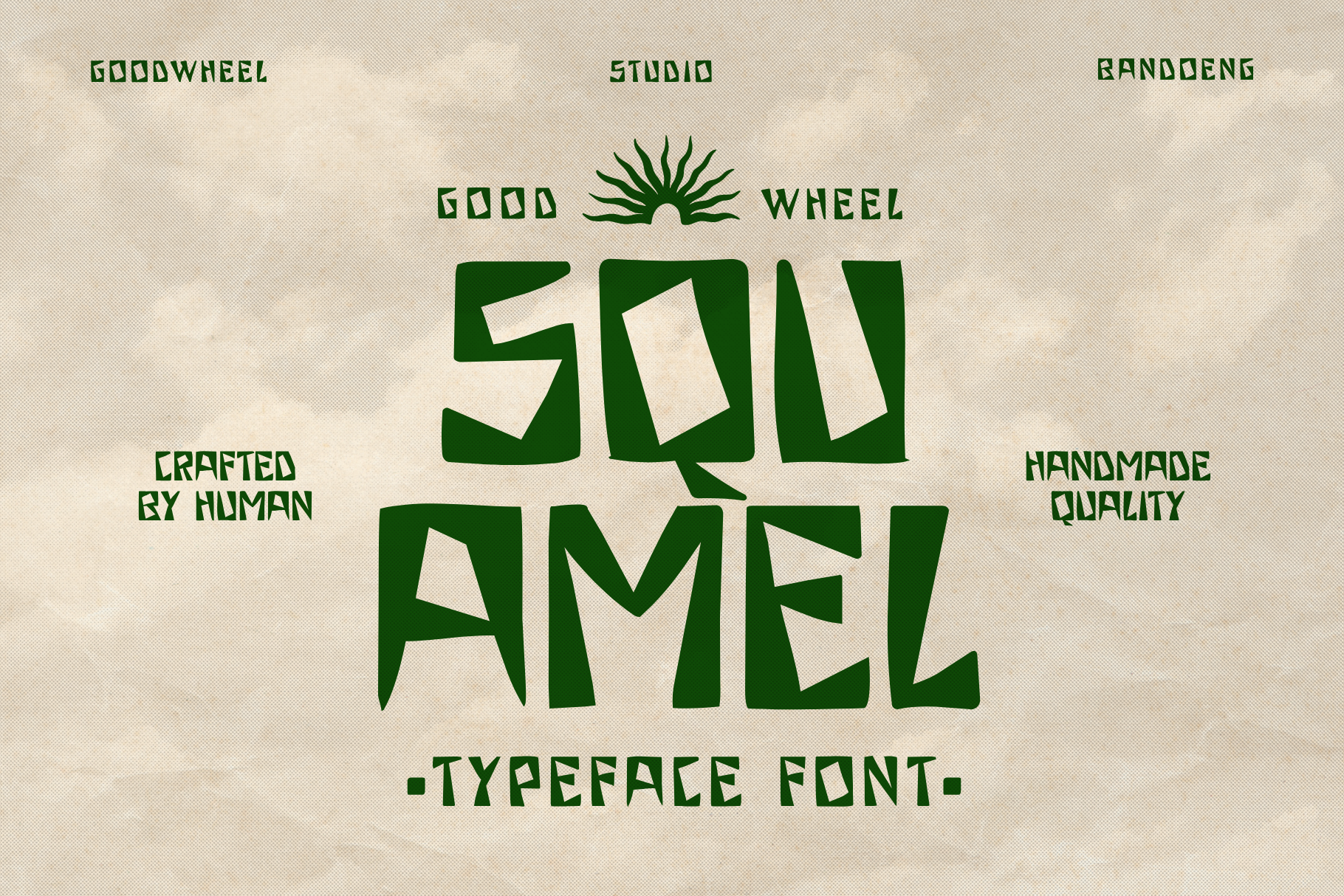
Squamel | Handdrawn Typeface
Squamel is a bold handcrafted display font inspired by primitive shapes, tribal art, and playful geometric forms. Featuring irregular angles, organic cuts, and expressive letterforms, it brings a raw, adventurous personality to any design. Squamel is perfect for branding, posters, packaging, book covers, children's products, festival graphics, apparel, logos, and editorial headlines that demand attention. Its distinctive handcrafted appearance creates an authentic, artistic feel while remaining highly legible. Complete with uppercase, lowercase, numerals, punctuation, symbols, and multilingual support, Squamel offers versatility for both print and digital projects. Add a unique handcrafted aesthetic and unforgettable character to your next creative work.